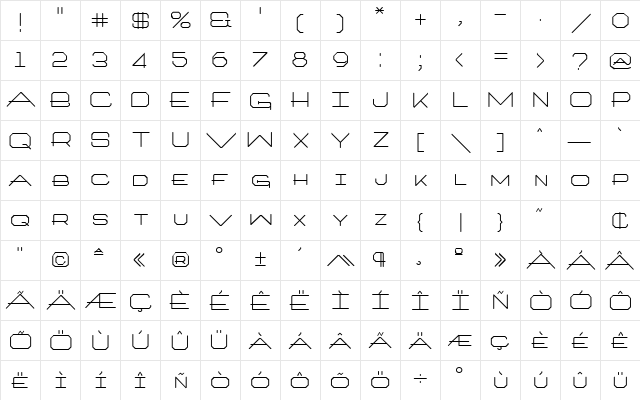
Trooklern Regular
Design Context for Trooklern Typeface
Trooklern offers clean, dependable letterforms without strong stylistic allegiance, making it a practical choice for designers who need flexibility.
Pro Tip: Use Trooklern in both headline and body roles to test its range before committing to a single application.